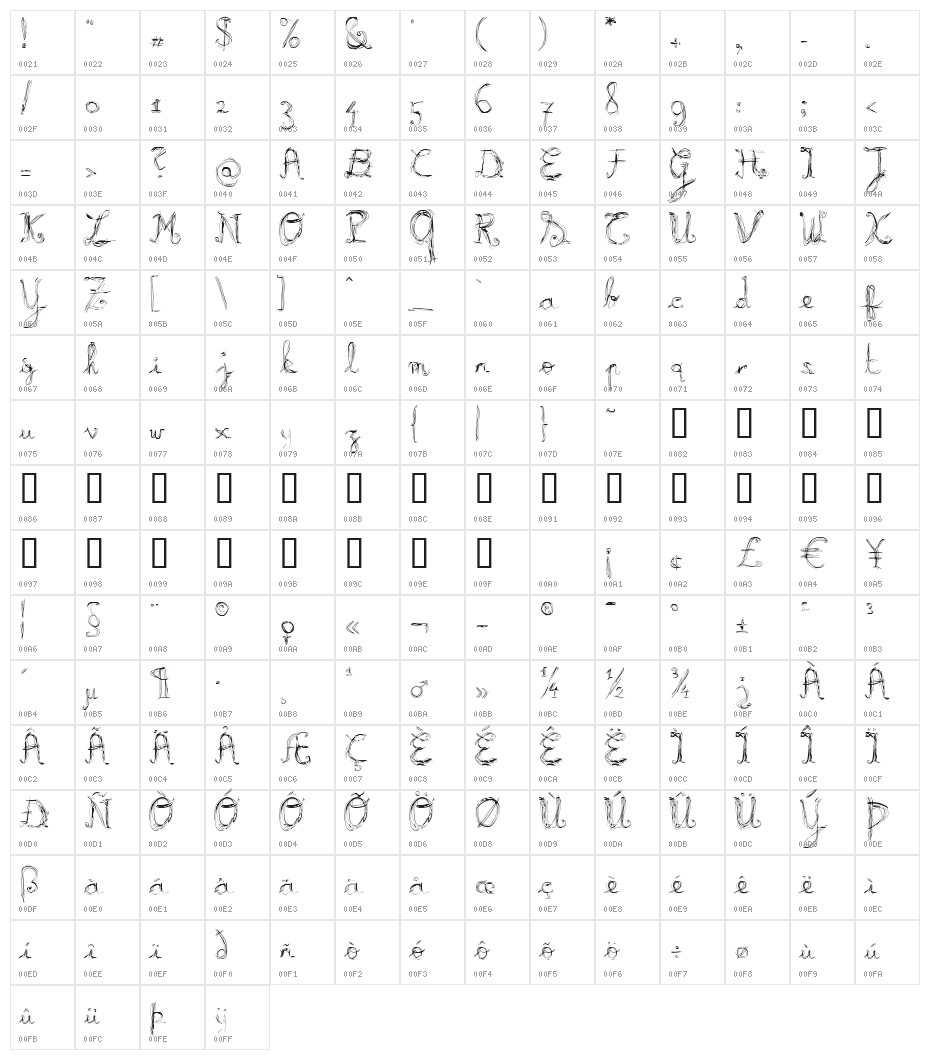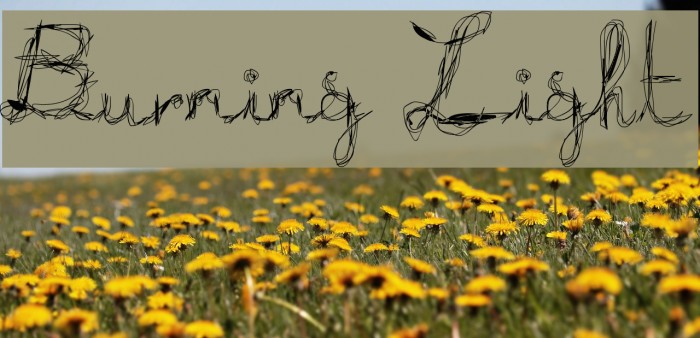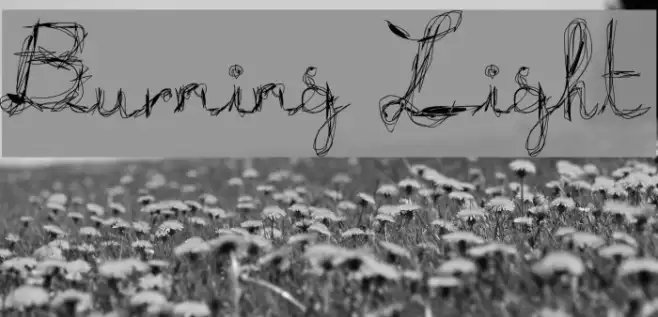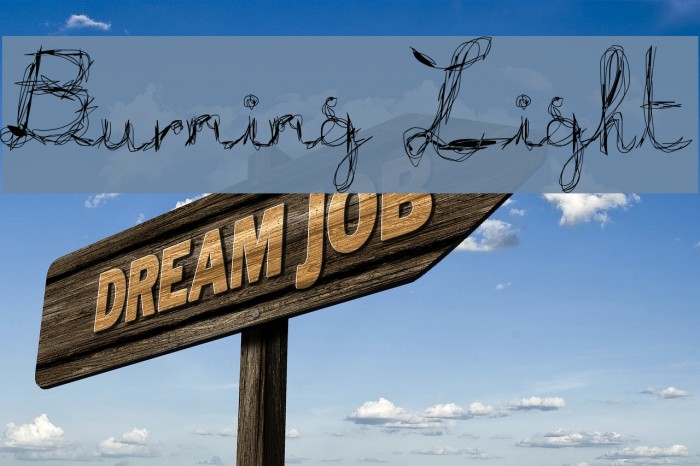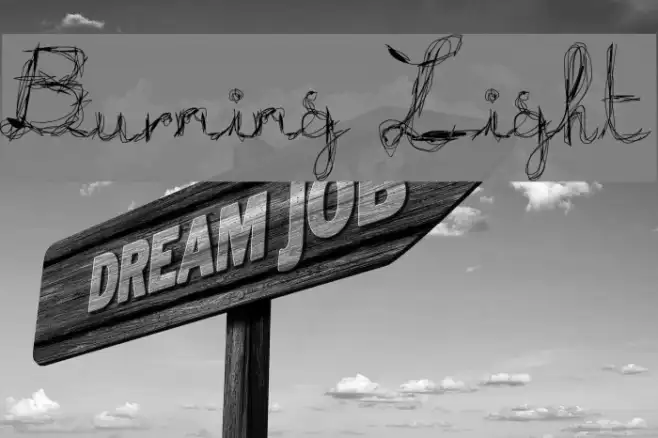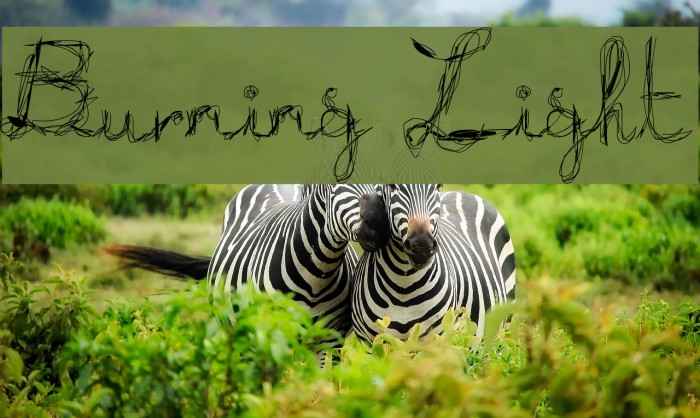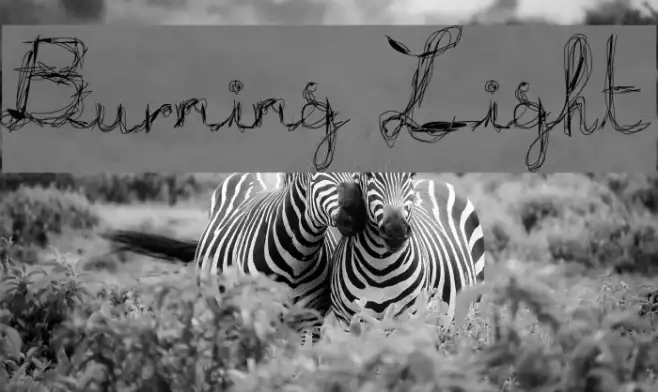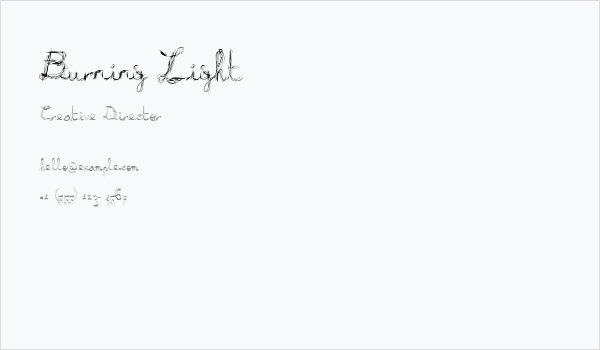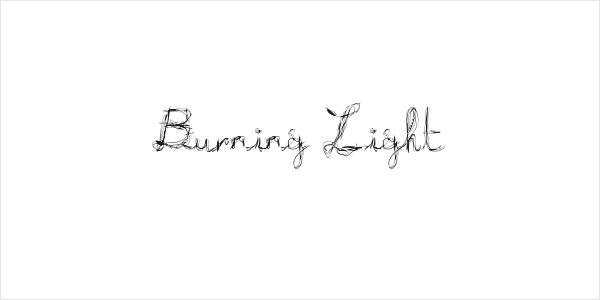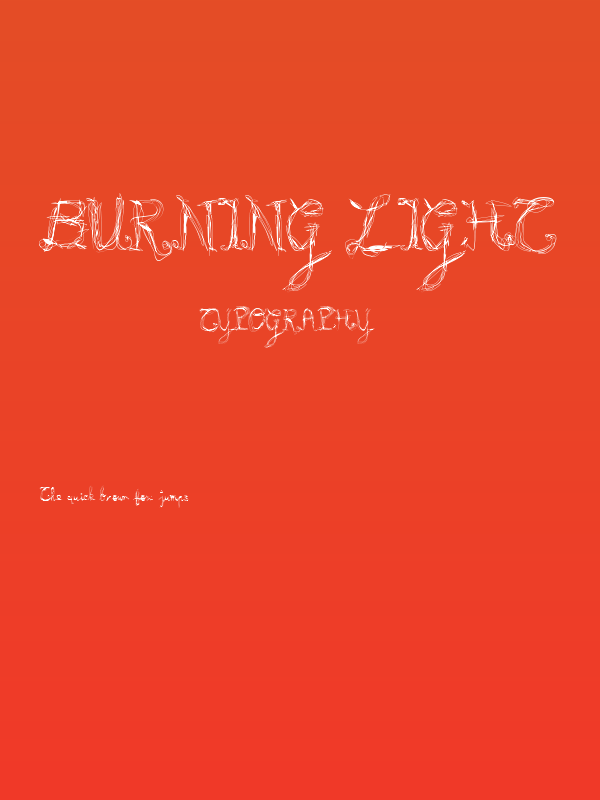
Burning Light Font
Burning Light Description
This font features a highly decorative and artistic style, characterized by its intricate, hand-drawn appearance. Each letter is composed of swirling lines and loops, giving it a chaotic yet intentional look. The strokes are uneven, with varying thicknesses that create a dynamic and energetic feel. The uppercase letters are bold and prominent, while the lowercase letters maintain the same whimsical quality. Numbers and special characters follow the same design principles, ensuring consistency throughout. This font is ideal for projects that require a unique and eye-catching aesthetic.
| Use Case | Logos, Posters, Artistic Designs |
| Proposed Projects | Ideal for artistic projects, album covers, posters, and any design needing a distinctive, eye-catching font. |